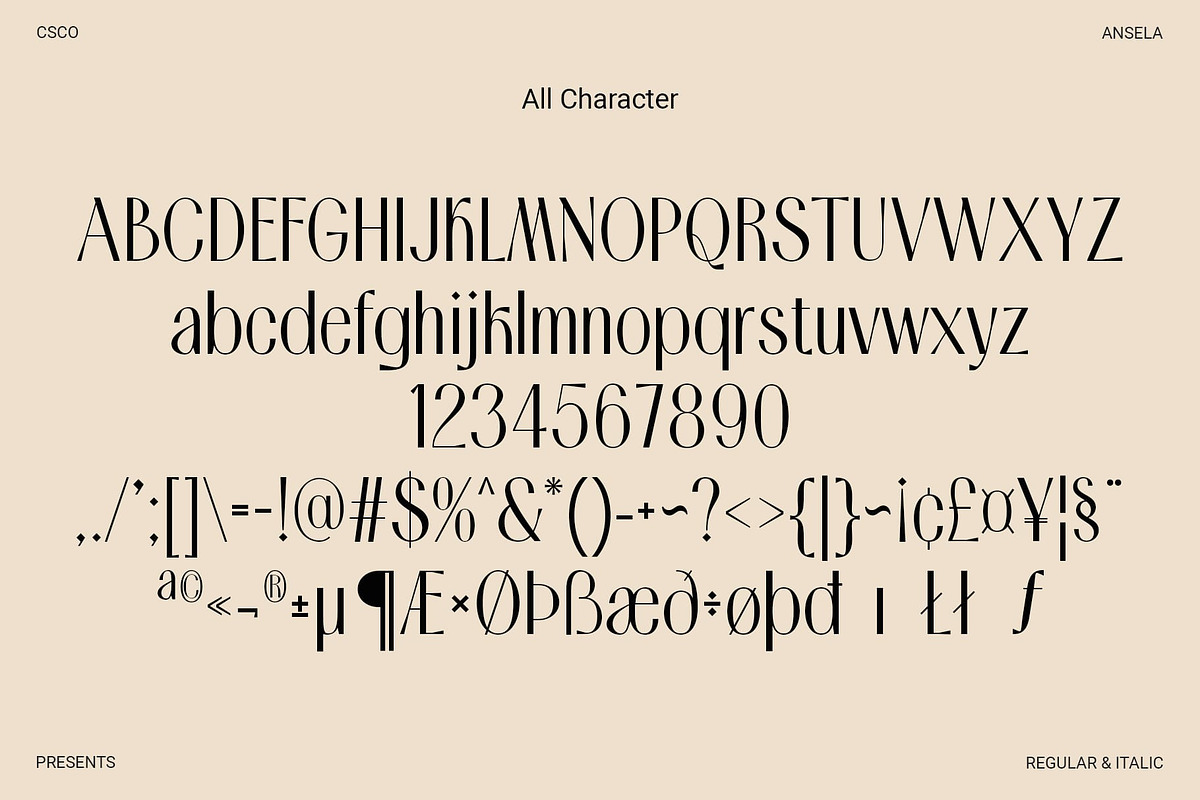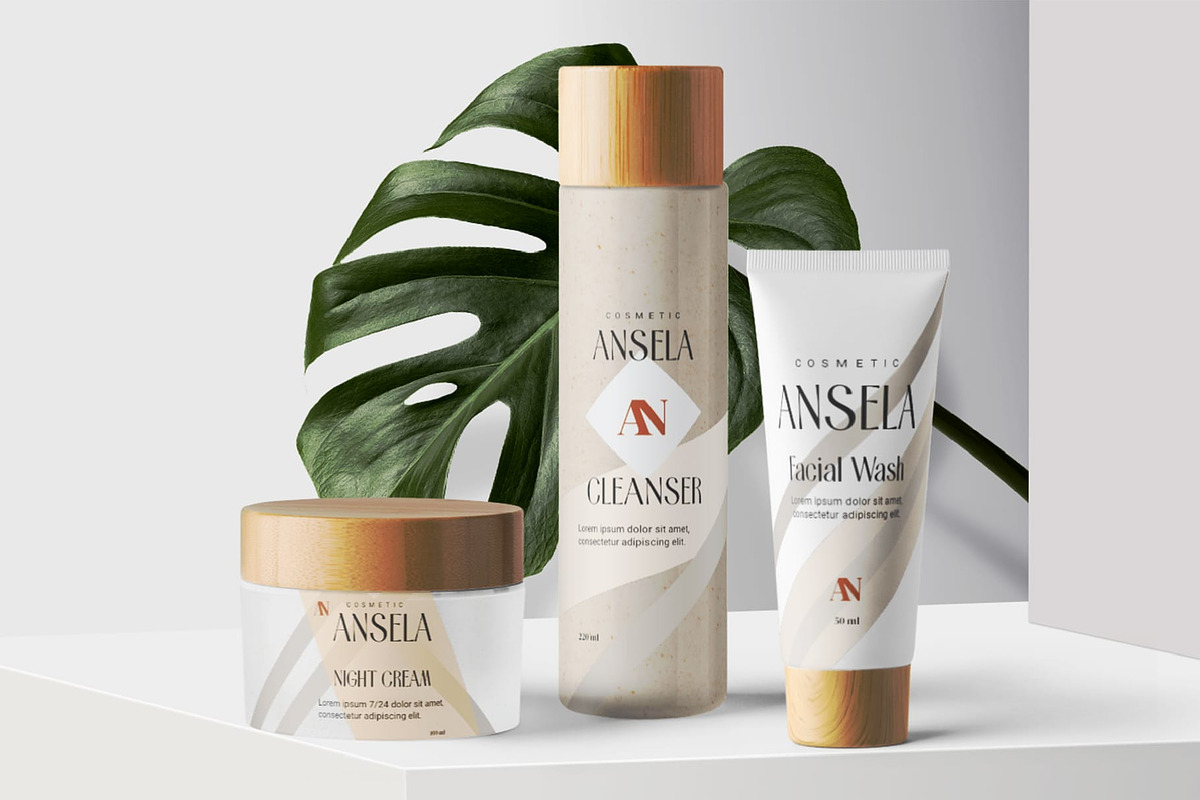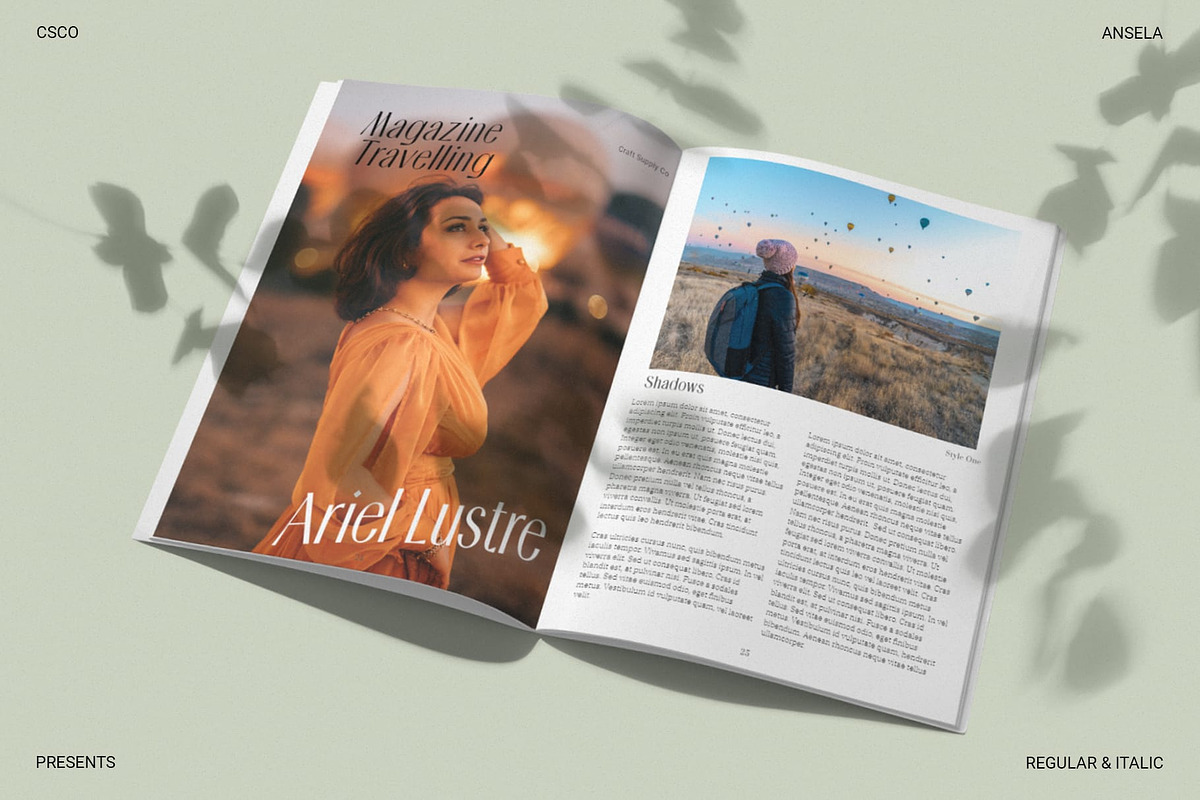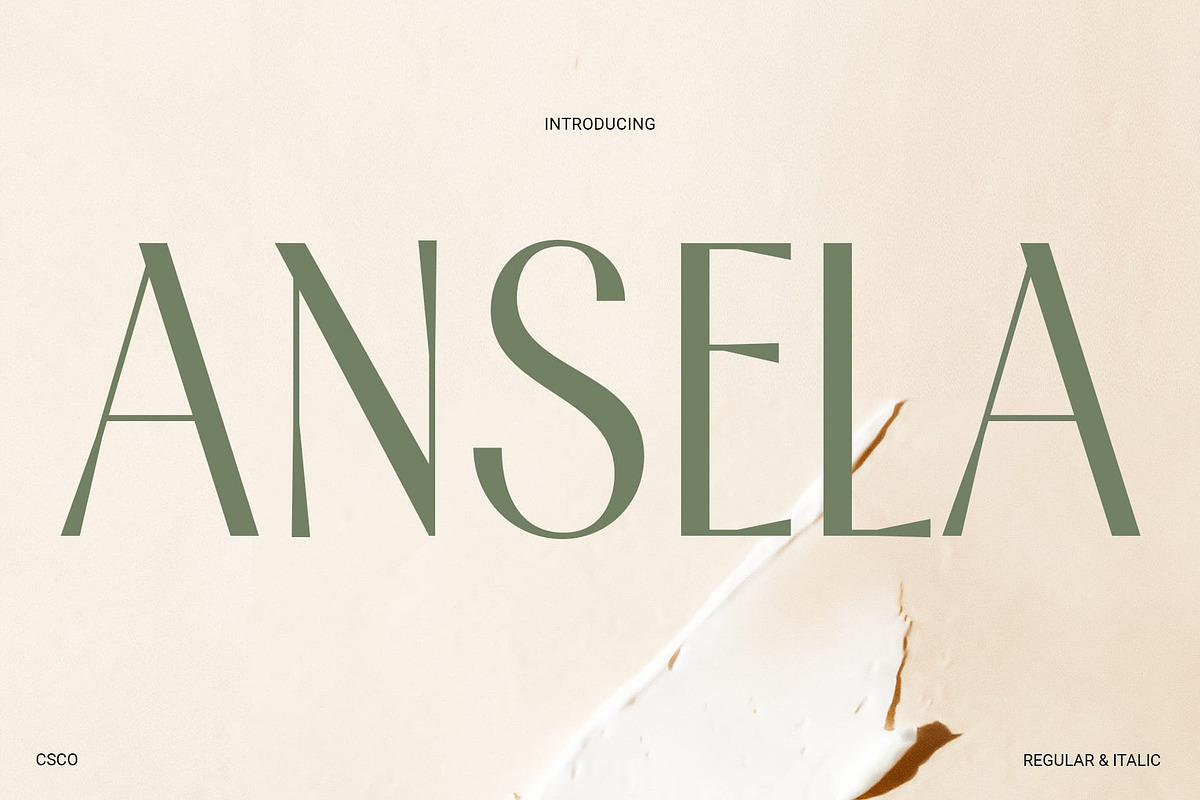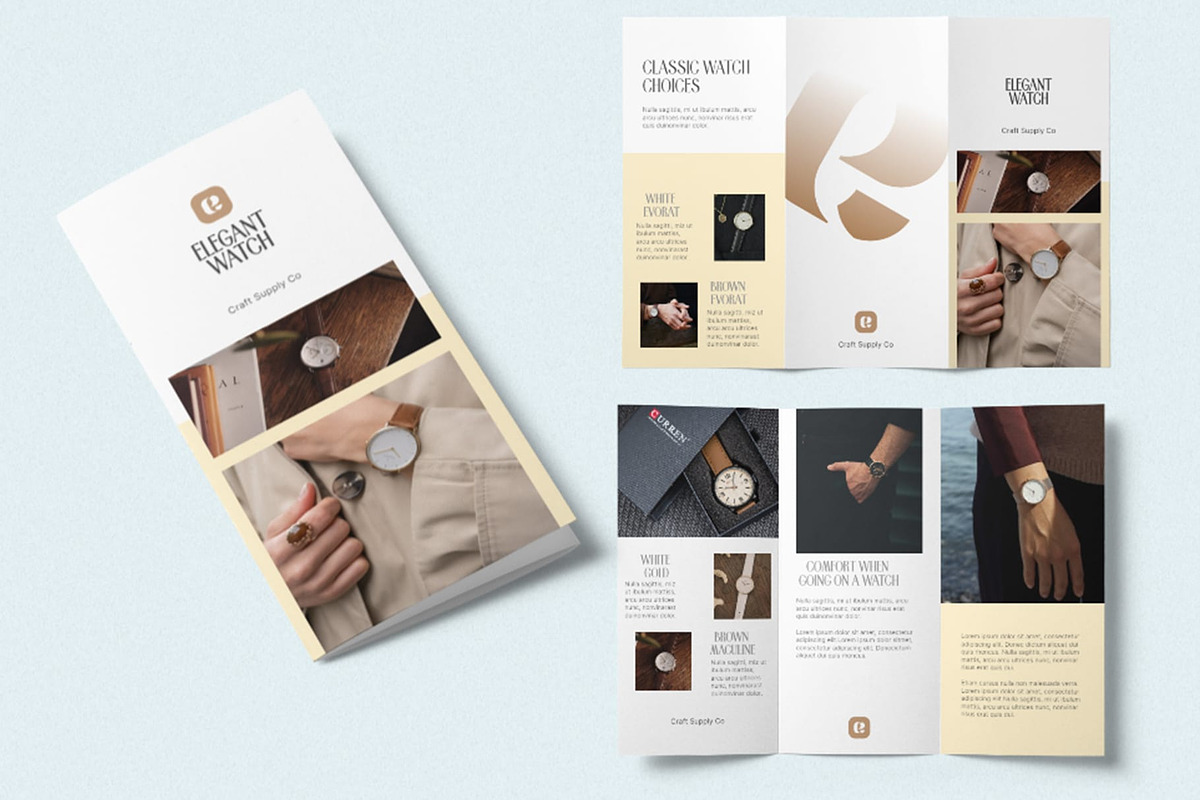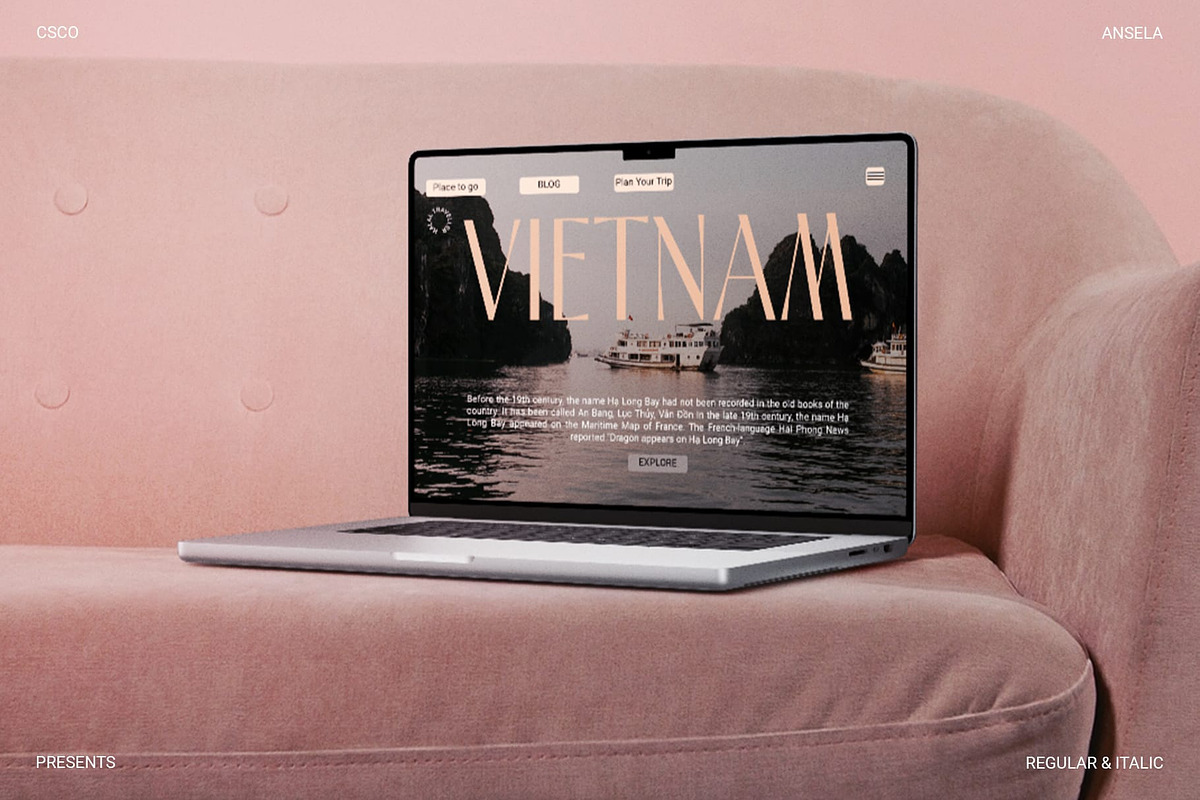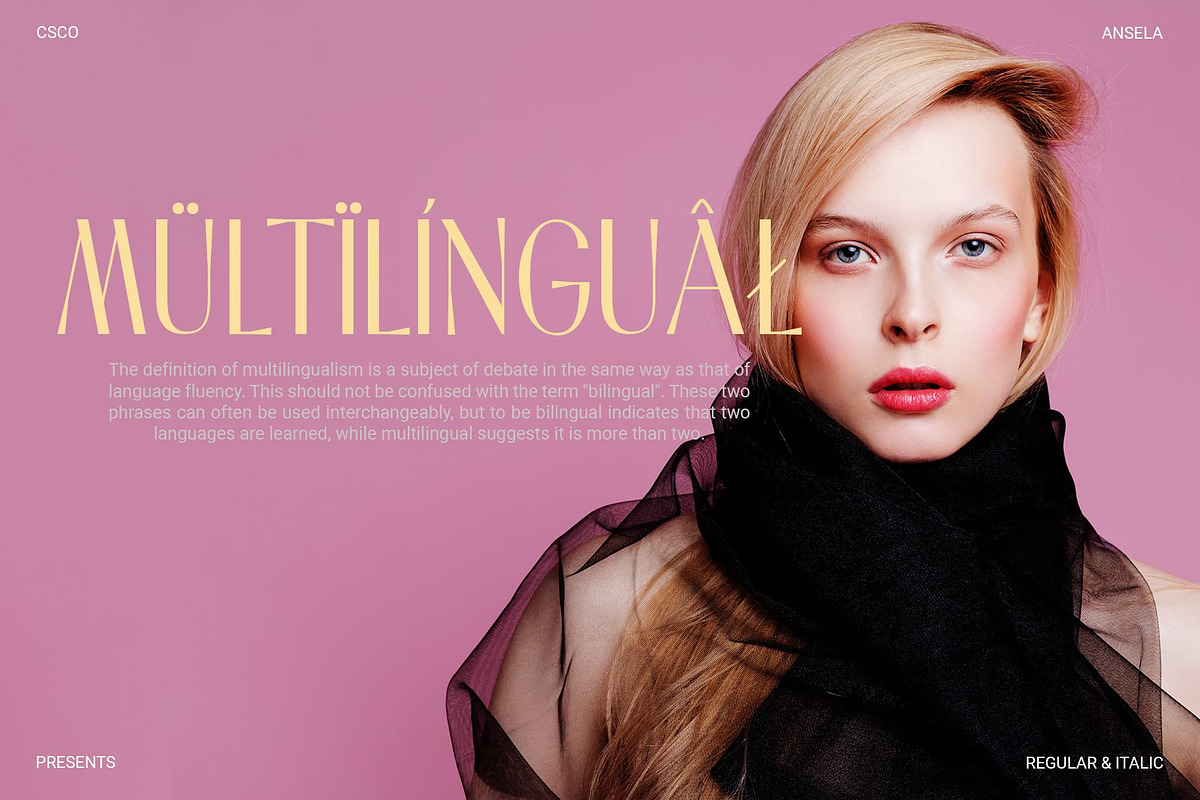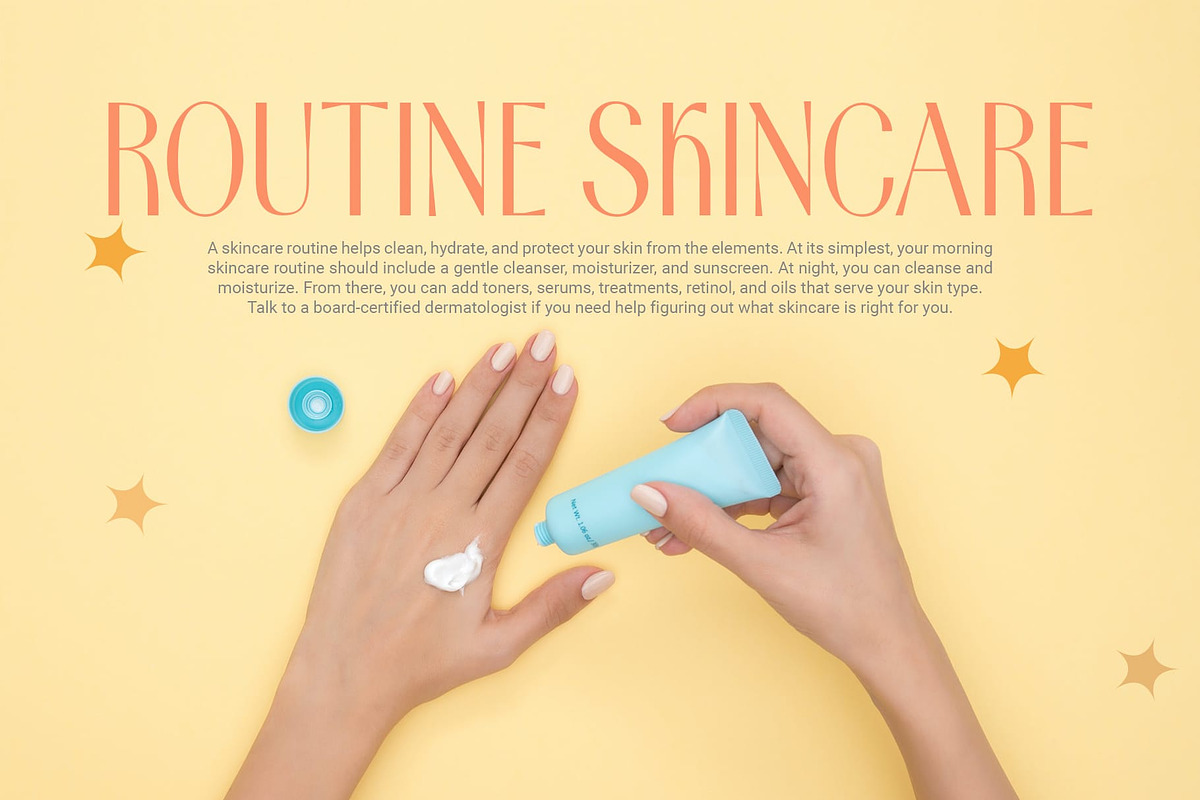
Ansela – Elegant Sans
Ansela Font: A Modern Elegance in Simplicity
Sleek Sophistication Ansela, an embodiment of sleek sophistication, blends modern sans serif aesthetics with minimalist design, creating a font that exudes timeless elegance.
Minimalist Marvel With clean lines and simple forms, Ansela transforms simplicity into a design marvel, making it the perfect choice for those who appreciate the beauty of less.
Timeless Modernity Incorporating a touch of modernity, Ansela stands as a testament to the timeless appeal of sans serif fonts, offering a contemporary twist to classic elegance.
Versatile Elegance Whether used for branding, editorial, or digital applications, Ansela adapts seamlessly, elevating any project with its understated yet powerful elegance.
Effortless Refinement Ansela’s effortless refinement makes it a versatile companion for designers seeking a font that effortlessly balances modern aesthetics with timeless grace. Elevate your projects with the subtle sophistication of Ansela.